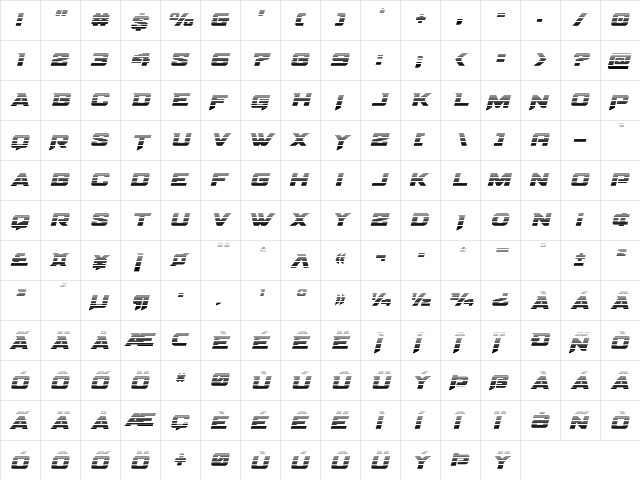
Bomber Escort Gradient Italic Regular
Design Context for Bomber Escort Gradient Italic Typeface
Bomber Escort Gradient Italic is a composed and adaptable typeface that performs quietly and consistently across a wide range of design contexts. The slanted form adds forward momentum and visual energy.
Pro Tip: Use Bomber Escort Gradient Italic for emphasis, pull quotes, and subheadings where its slanted energy can add rhythm to the layout.